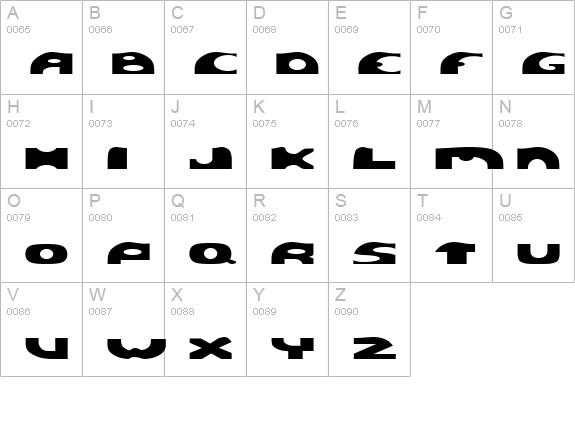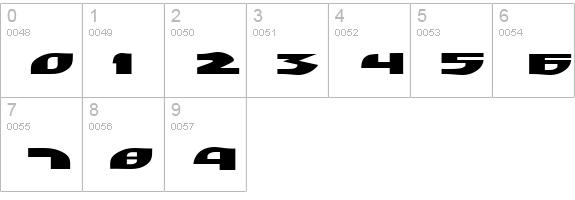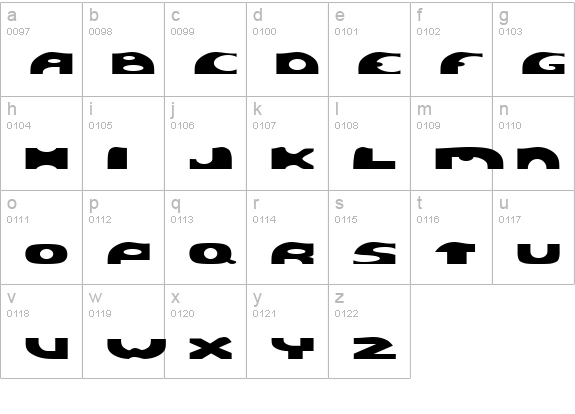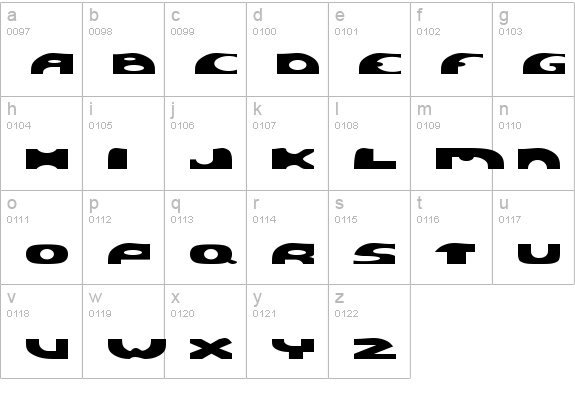
PIGSTY Font Details
Introducing PIGSTY font, the epitome of unconventional creativity and unapologetic boldness. This unique typeface effortlessly combines edgy aesthetics with a touch of playfulness, making it the perfect choice for those who dare to stand out from the crowd. PIGSTY font is a true representation of artistic expression, bringing forth a distinct personality that commands attention and leaves a lasting impression. Its carefully crafted letterforms exude a sense of raw energy, with each curve and stroke telling a story of rebellion and artistic freedom. This one-of-a-kind font offers endless possibilities for various design projects, whether it be posters, logos, album covers, or social media graphics. PIGSTY font's versatility knows no bounds, adapting effortlessly to any creative venture, from street art-inspired designs to avant-garde print materials. But the best part? PIGSTY font is absolutely free! That's right, this remarkable font is freely available to download at FontsMarket.com, ensuring that everyone can embrace its captivating charm without any limitations. Say goodbye to the constraints of traditional typography and embrace the freedom that PIGSTY font brings to your designs. So, if you're ready to break free from the mundane and make a bold statement with your typography, look no further than PIGSTY font. Download it today at FontsMarket.com and unleash your creativity like never before.